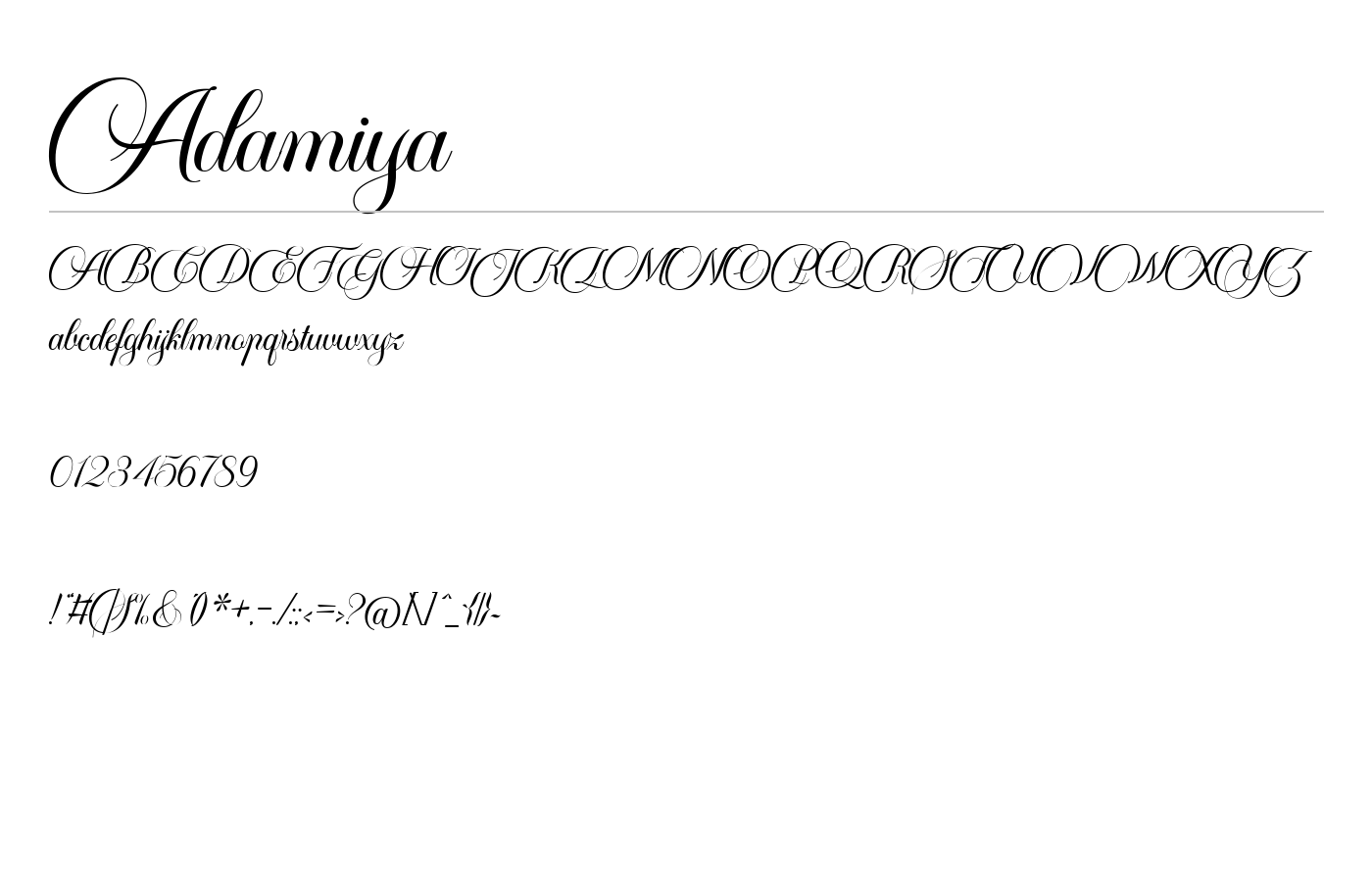
Adamiya is an elegant script font characterized by its delicate, flowing strokes and high contrast between thin and thick lines, creating a refined and sophisticated appearance. With its flourishing uppercase letters and slender lowercase forms, it evokes a sense of luxury and classic beauty, making it ideal for invitations, branding, and editorial projects that seek a graceful, timeless style.
Adamiya Font
About Adamiya Font
| Font family | Adamiya Font |
| Designer | Haikal Juanda |